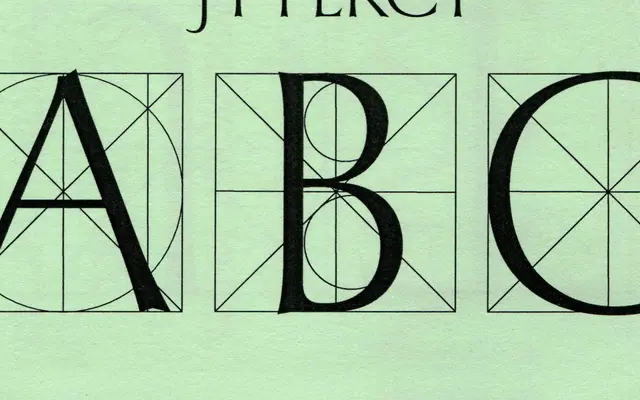
JT Percy
July Type · Maya Nakanishi
A serif rooted in stone-carved letterforms and the inscriptional work of Percy John Delf Smith, with extensive swashes and ligatures across Latin and Cyrillic.
Developed through archival research and cemetery visits, the typeface draws its uppercase proportions from second-century incised inscriptions and its lowercase from Renaissance humanist forms. An extensive range of swashes and ligatures opens up expressive typographic possibilities uncommon in a single-weight release. Cyrillic support was developed in collaboration with Bulgarian designer Pavel Pavlov, ensuring tonal consistency between the two scripts.
Rooted in stone-carved and incised letterforms, with uppercase proportions drawn from second-century Roman inscriptions and lowercase from Renaissance humanist forms; the extensive swash and ligature system gives it a strongly inscriptional, calligraphic character.